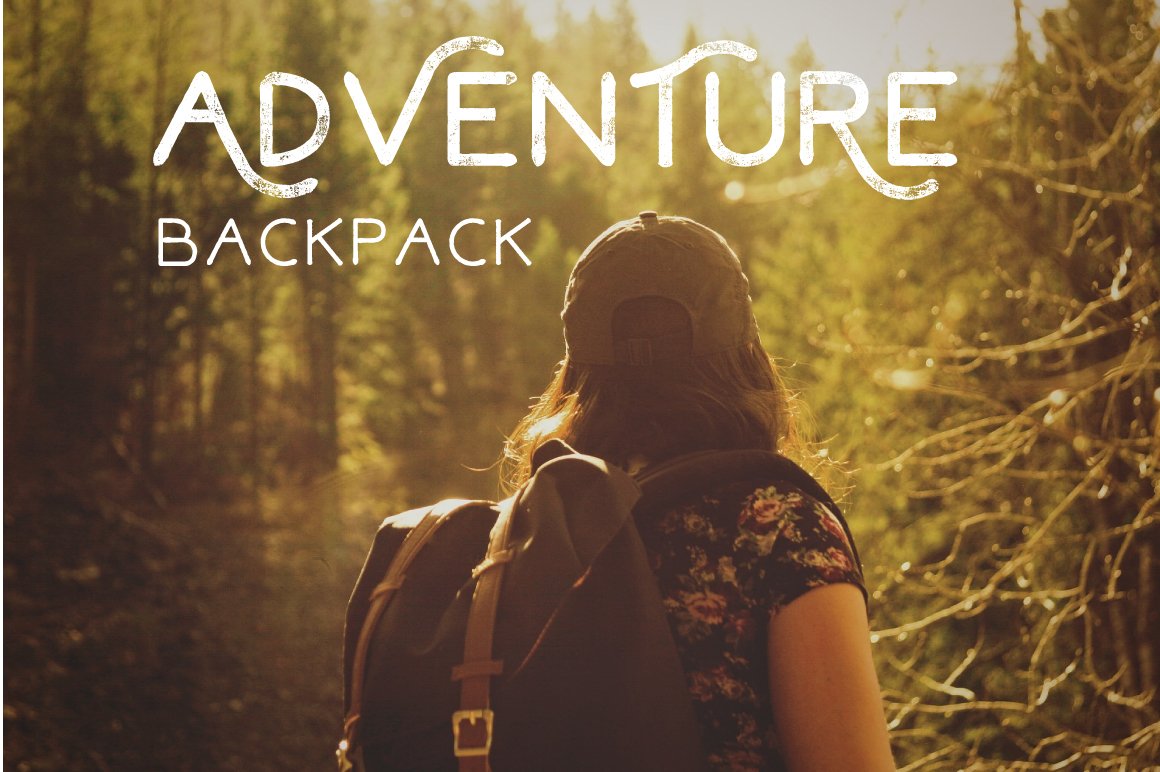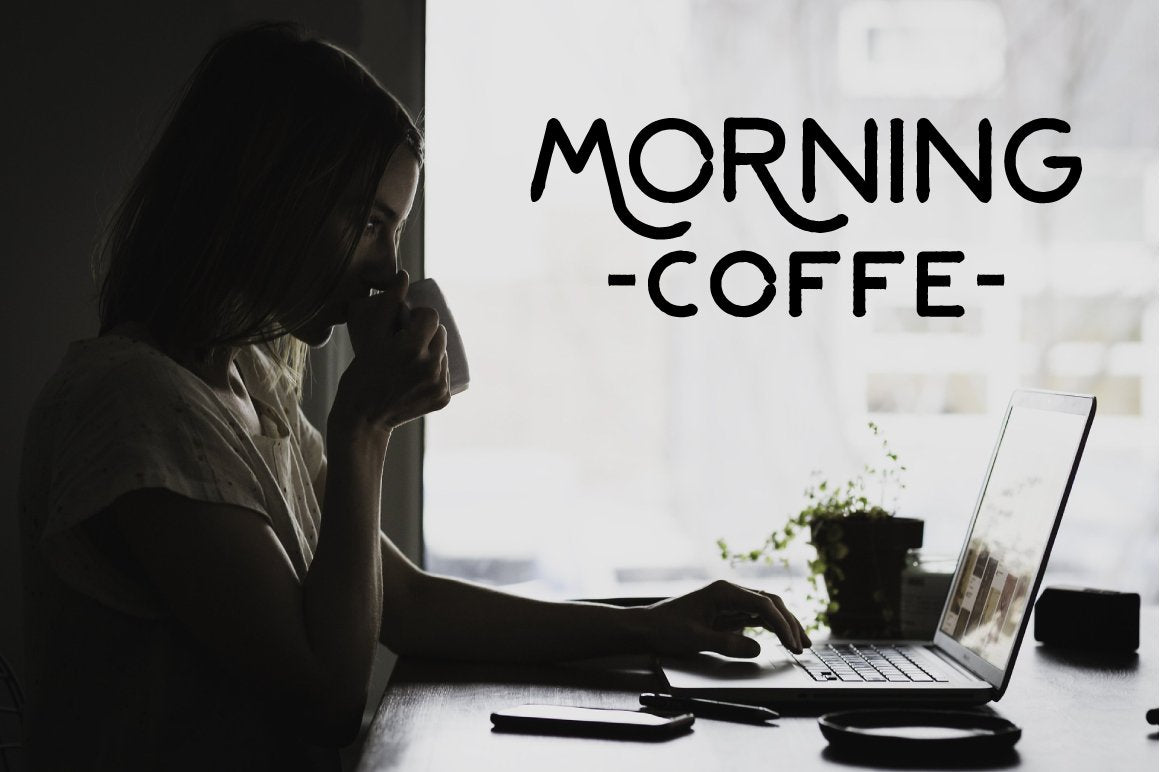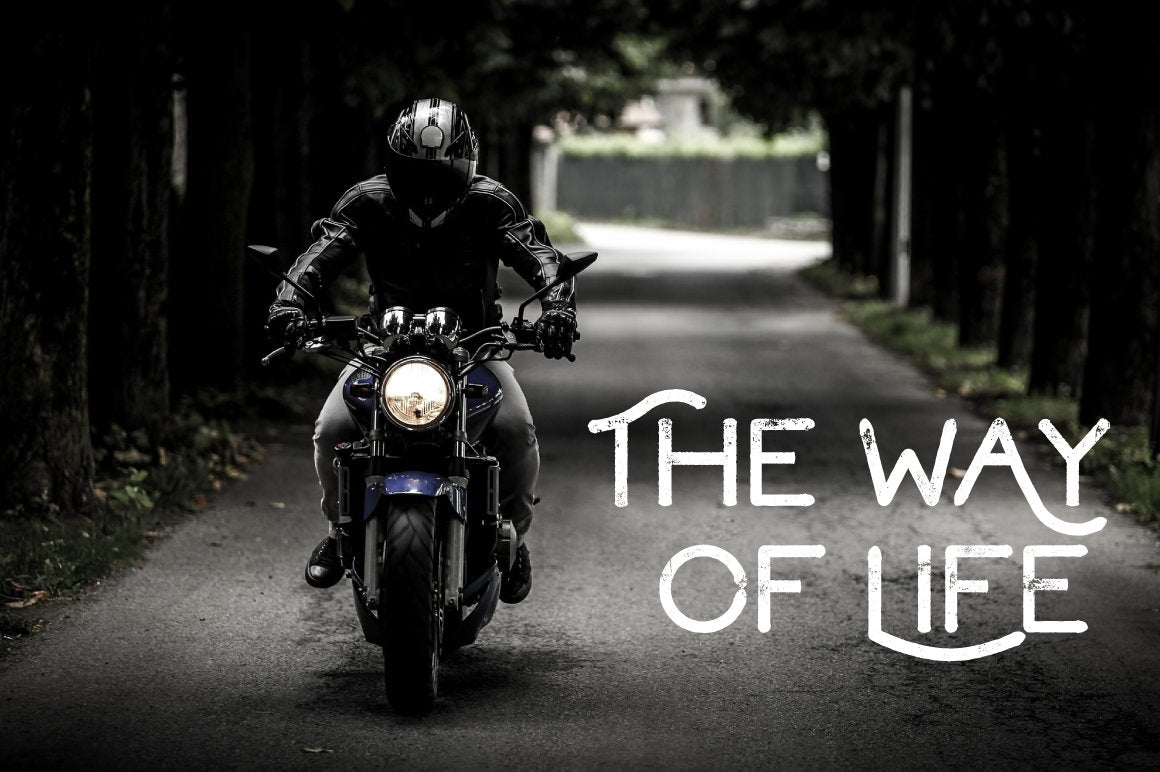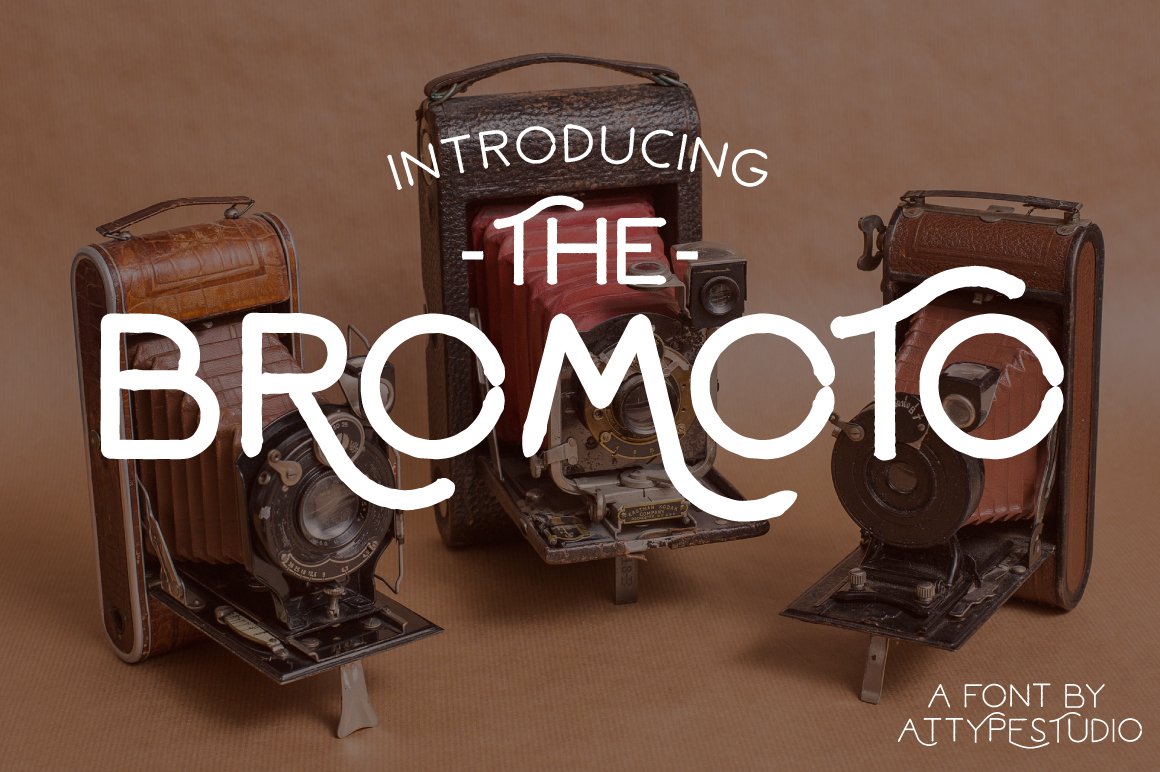
Free Bromoto Display Font
Featuring the eye-watering free bromoto display font. Download this typeface from the original source of Fadli Ramadhan Iskandar. Easily amaze your audience with this fancy font and make your graphic designs pop up from the crowd.